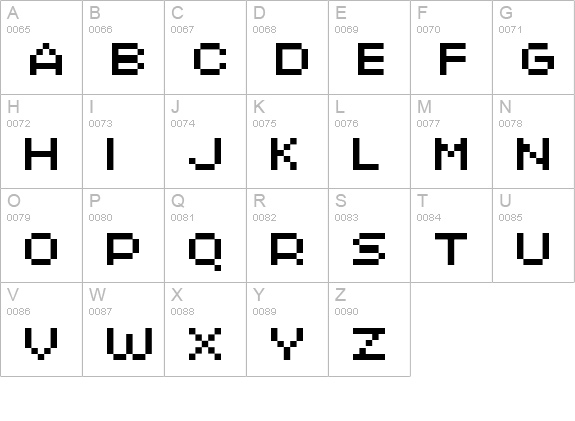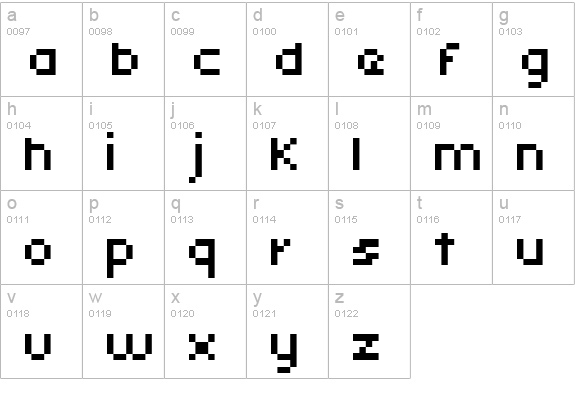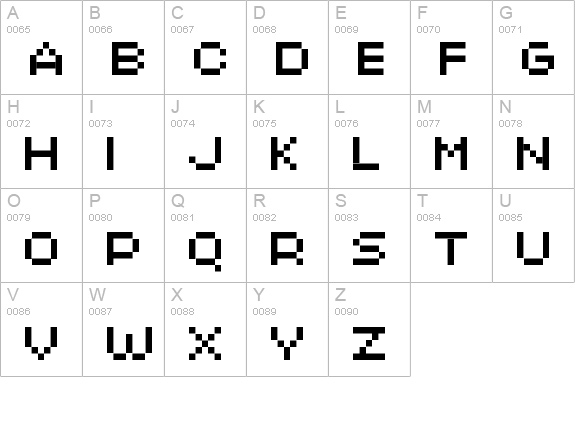
xpaider pixel explosion 01 Font Details
The Xpaider Pixel Explosion 01 font is a dynamic and eye-catching typeface that encapsulates the excitement and energy of a digital explosion. Its pixelated design gives off a futuristic and modern vibe, making it perfect for projects that require a touch of edginess and creativity. This unique font is ideal for posters, logos, gaming graphics, and any other design that needs to make a statement. The best part about the Xpaider Pixel Explosion 01 font is that it is completely free to download at FontsMarket.com. Whether you're a designer looking to add a bold touch to your creations or just someone who appreciates cutting-edge typography, this font is sure to inspire and captivate. Don't miss out on this opportunity to enhance your projects with the Xpaider Pixel Explosion 01 font today!